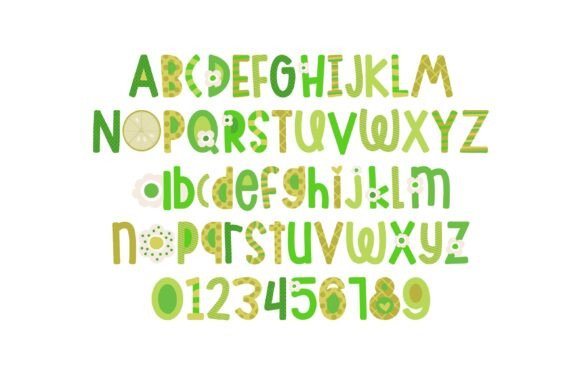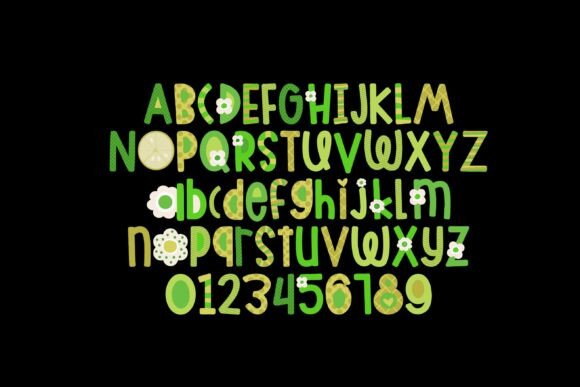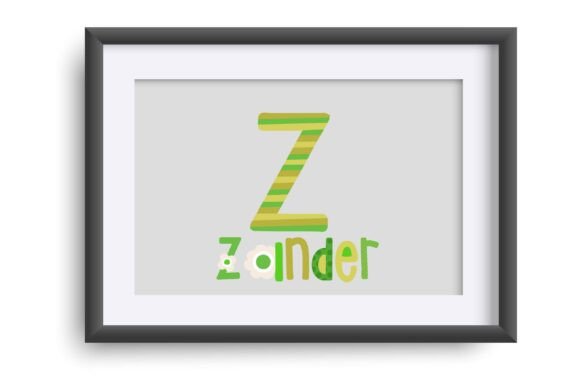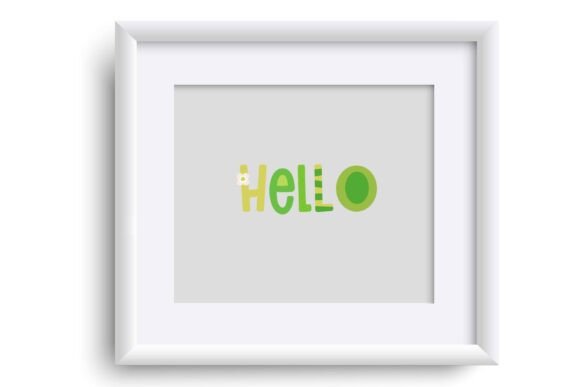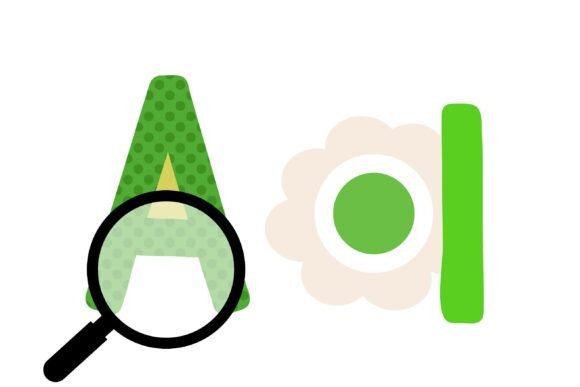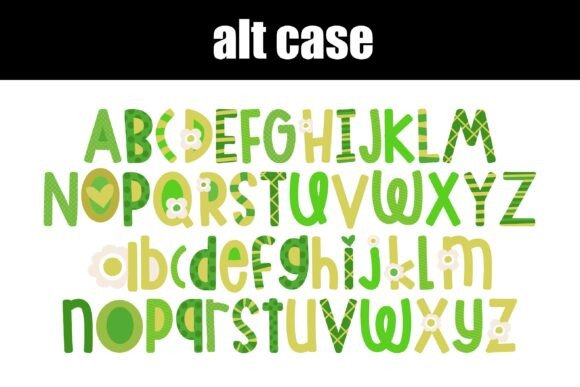
Introduction to Lime Blossom Font
As you sit in your cluttered studio, surrounded by half-finished projects and scraps of paper, you suddenly feel the urge to add a pop of color to your latest creative endeavor. You scroll through your favorite design resources, searching for that one thing that will bring your vision to life. And then, you stumble upon it – the Lime Blossom Font. This vibrant, full-color SVG font is more than just a design element; it’s a game-changer for your next big project.
The Lime Blossom Font is a true masterpiece, boasting a refreshed palette of lime, forest, and moss greens, with each character uniquely adorned with hand-drawn patterns. From citrus-inspired stripes to delicate flower charms, this font is a treasure trove of design possibilities. Whether you’re working on an artisanal juice bar branding project or creating personalized botanical stationery, the Lime Blossom Font is the perfect addition to your design arsenal.
Key Features of Lime Blossom Font
- Unique, hand-drawn style with intricate details and a soft, floral aesthetic.
- Perfect for adding a touch of elegance and whimsy to your design projects, from invitations and greeting cards to branding and packaging.
Honest Review: Lime Blossom Font
I recently stumbled upon the Lime Blossom Font and was excited to give it a try in my latest creative project. As a designer, I’m always on the lookout for high-quality design resources to elevate my work, and I was pleased to find this font.
What works well with the Lime Blossom Font is its unique and delicate style. It’s perfect for projects that require a touch of whimsy and elegance. I particularly appreciate the transparent background option, which makes it easy to combine with other design elements. The font is also available for free download, which is a definite bonus.
- ✨ Unique and delicate style
- ✨ Transparent background option
However, I do have a few minor complaints. ⚠️ The font may not be as versatile as some other options, and it’s best suited for projects with a specific aesthetic in mind. Additionally, the font is a bit limited in its character set, so it may not be the best choice for longer blocks of text.
Overall, I’m pleased with the Lime Blossom Font and would recommend it to designers looking for a unique and elegant font for their next creative project. It’s definitely a valuable addition to any design resource collection.
Tips for Getting the Most Out of Lime Blossom Font
Use Lime Blossom Font as a design resource for your creative project. Combine it with other design elements to create a unique visual effect. Experiment with different font sizes and colors to add depth and interest to your design.
Lime Blossom Font is perfect for wedding invitations, event branding, and digital marketing materials. Its high-quality design and transparent background make it an ideal choice for creating visually appealing designs.